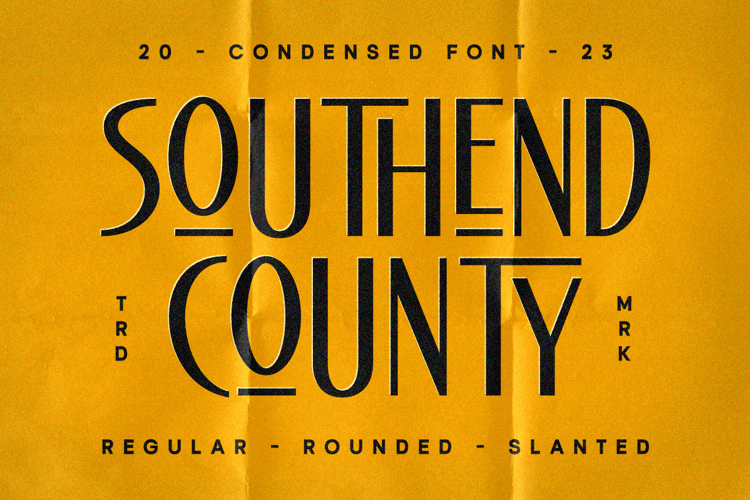
Southend County Font
Southend Country is a condensed font that combines classic elegance with modern looks. With its condensed design, it offers a sophisticated look that’s perfect for headlines design. This font comes in three styles – Regular, Rounded, and Slanted.